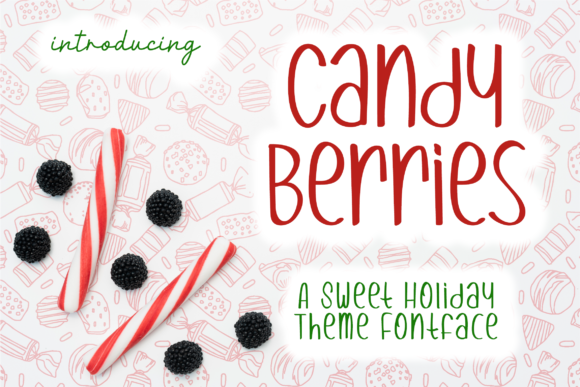
Candy Berries Font: A Cute Handwritten Holiday-Themed Font for All Year Round
Are you looking for a font that can add a touch of joy and festivity to your designs, regardless of the time of year? Look no further than Candy Berries Font, a beautiful handwritten holiday-themed font that’s perfect for all your creative projects. In this article, we’ll take a closer look at Candy Berries Font, its features, and how you can use it to make your designs stand out.
What is Candy Berries Font?
Candy Berries Font is a cute handwritten holiday-themed font that’s designed to bring a smile to your face. Its playful and whimsical design makes it perfect for a wide range of creative projects, from web posting and printing to moving images and more. Whether you’re designing a Christmas card, a holiday-themed website, or a festive social media post, Candy Berries Font is sure to add a touch of joy and festivity to your designs.
Features of Candy Berries Font
Candy Berries Font comes with a range of features that make it perfect for all your creative projects. Some of its key features include:
- Handwritten design: Candy Berries Font has a beautiful handwritten design that’s perfect for adding a personal touch to your designs.
- Holiday-themed: While Candy Berries Font is designed with the holiday season in mind, its playful and whimsical design makes it perfect for use all year round.
- Cute and playful: Candy Berries Font is a cute and playful font that’s sure to bring a smile to your face.
- Script font: Candy Berries Font is a script font that’s perfect for adding a touch of elegance and sophistication to your designs.
How to Use Candy Berries Font
Candy Berries Font is easy to use and can be incorporated into a wide range of creative projects. Here are some ideas for using Candy Berries Font:
- Web posting: Use Candy Berries Font to add a touch of joy and festivity to your website or blog.
- Printing: Candy Berries Font is perfect for printing, whether you’re designing a Christmas card, a holiday-themed brochure, or a festive poster.
- Moving images: Use Candy Berries Font to add a touch of joy and festivity to your videos, animations, and other moving images.
- Social media: Candy Berries Font is perfect for social media, whether you’re designing a festive Facebook post, a holiday-themed tweet, or a joyful Instagram story.
Benefits of Using Candy Berries Font
There are many benefits to using Candy Berries Font in your designs. Some of the key benefits include:
- Unique and eye-catching: Candy Berries Font is a unique and eye-catching font that’s sure to make your designs stand out.
- Playful and whimsical: Candy Berries Font has a playful and whimsical design that’s perfect for adding a touch of joy and festivity to your designs.
- Easy to use: Candy Berries Font is easy to use and can be incorporated into a wide range of creative projects.
- Festive and fun: Candy Berries Font is a festive and fun font that’s perfect for the holiday season and beyond.
Tips for Using Candy Berries Font
Here are some tips for using Candy Berries Font in your designs:
- Use it sparingly: While Candy Berries Font is a beautiful font, it’s best to use it sparingly to avoid overwhelming your designs.
- Pair it with other fonts: Candy Berries Font pairs well with other fonts, so feel free to experiment with different font combinations.
- Experiment with colors: Candy Berries Font looks great in a range of colors, so don’t be afraid to experiment with different color schemes.
- Have fun: Most importantly, have fun with Candy Berries Font! Its playful and whimsical design makes it perfect for adding a touch of joy and festivity to your designs.
Candy Berries Font is a beautiful handwritten holiday-themed font that’s perfect for all your creative projects. Its playful and whimsical design makes it perfect for adding a touch of joy and festivity to your designs, whether you’re designing a Christmas card, a holiday-themed website, or a festive social media post. With its range of features, ease of use, and benefits, Candy Berries Font is sure to become a favorite font in your collection.